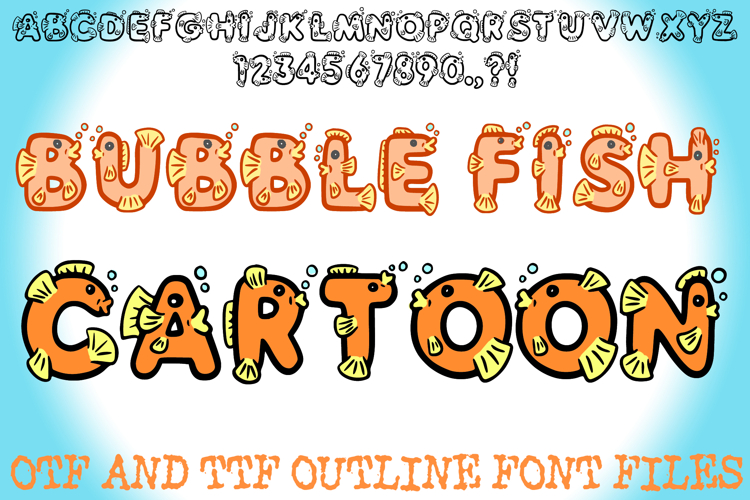
Bubble Fish Cartoon Alphabet Lettering ABC Text Font Seaside
Dive into the fun with the Bubble Fish Cartoon Font! This unique, adorable typeface brings the cheerful world of the aquarium directly to your projects. Each chunky, rounded letter is uniquely designed to look like a friendly, chubby fish, complete with fins, tails, and little floating air bubbles.
This highly decorative font is perfect for any project targeting children, including educational materials, birthday invitations, party decorations, and playful branding. Its clear, bold shape ensures high visibility, making it an excellent display font for headers, posters, and apparel.
Whether you're creating materials for a preschool, designing a summer camp t-shirt, or branding a seafood restaurant, the Bubble Fish Cartoon Font adds a splash of aquatic charm.